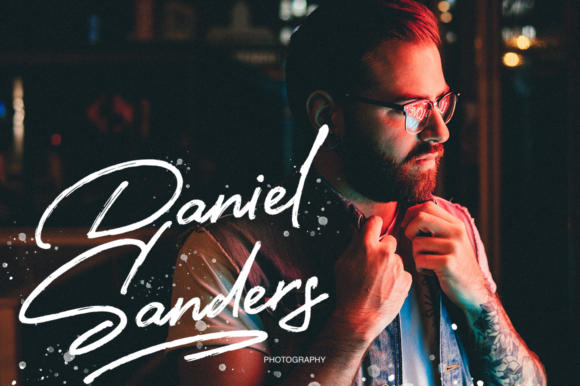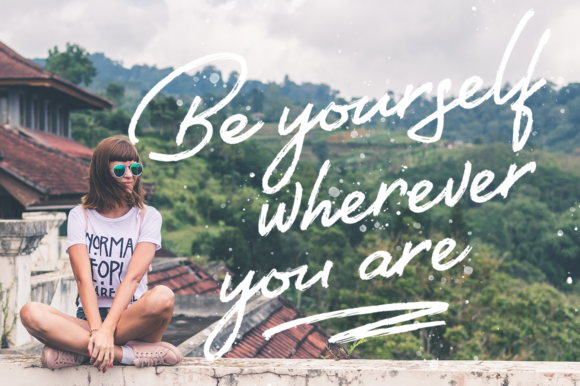
Royal Voyage Font
db-ku.com - Script & Handwritten -- The Royal Voyage is a new, fresh, handmade script font. It’s ideal for branding and decorating your projects.